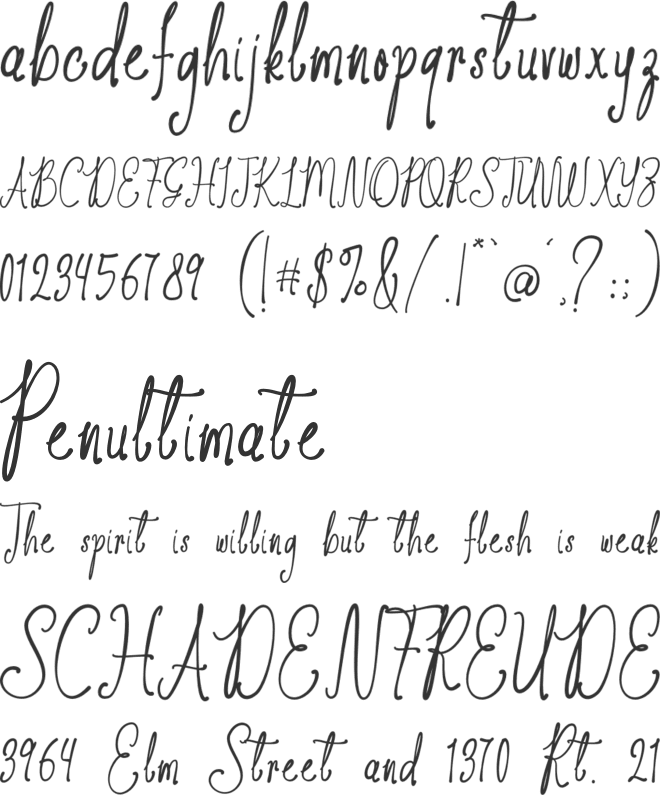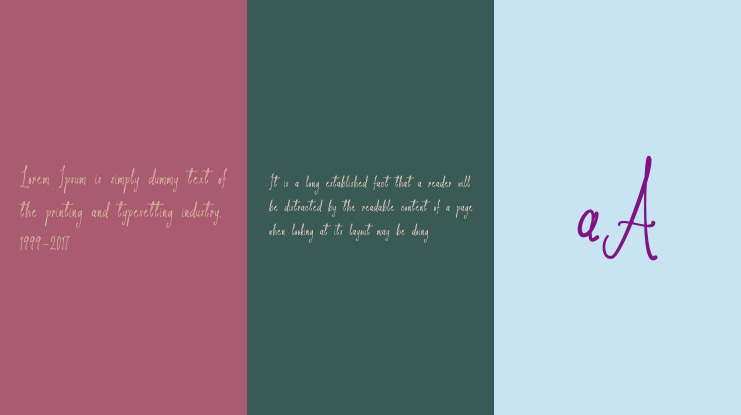
Wildflower Notes Font
Wildflower Notes is a charming handwritten natural whimsical font designed to bring warmth, creativity, and authenticity to every project. Inspired by carefree handwritten notes and the beauty of wildflowers, this font features flowing strokes, organic letterforms, and a playful personality that feels both elegant and approachable.